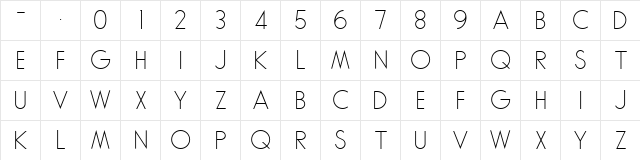
Metalarts 303 Light Ribbon Regular
Design Context for Metalarts 303 Light Ribbon Typeface
Metalarts 303 Light Ribbon takes a measured approach to typography — its balanced proportions and neutral character make it a reliable workhorse for both digital and print work. The delicate stroke weight brings airiness and refinement to layouts.